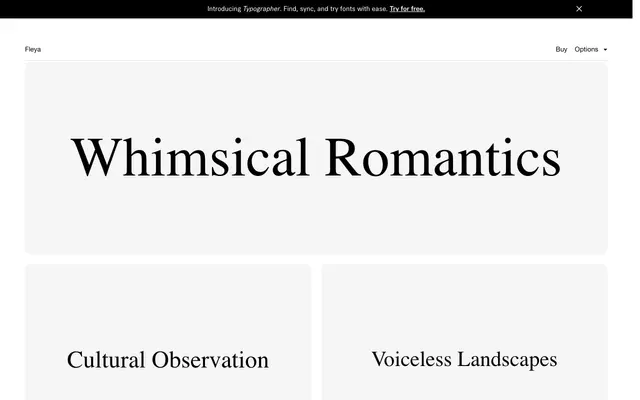
A contemporary serif drawing on classicist proportions and the incidental character of metal typesetting, with calligraphic ascenders, filled narrow gaps and a companion mono subfamily.
Fleya runs across four weights from Light to Bold, each with a matching italic, plus four Mono styles that make it an unusually complete family for a smaller foundry. Distinctive details include calligraphic ascenders and descenders and filled narrow gaps that recall the ink traps and quirks of metal composition. The character set covers a wide range of Latin-extended languages and the OpenType feature set includes multiple numeral styles, extensive ligatures and three stylistic sets.
Described as a modern serif with a classicist approach, blending contemporary type design with details evoking metal typesetting irregularities, including filled narrow gaps and calligraphic ascenders and descenders.